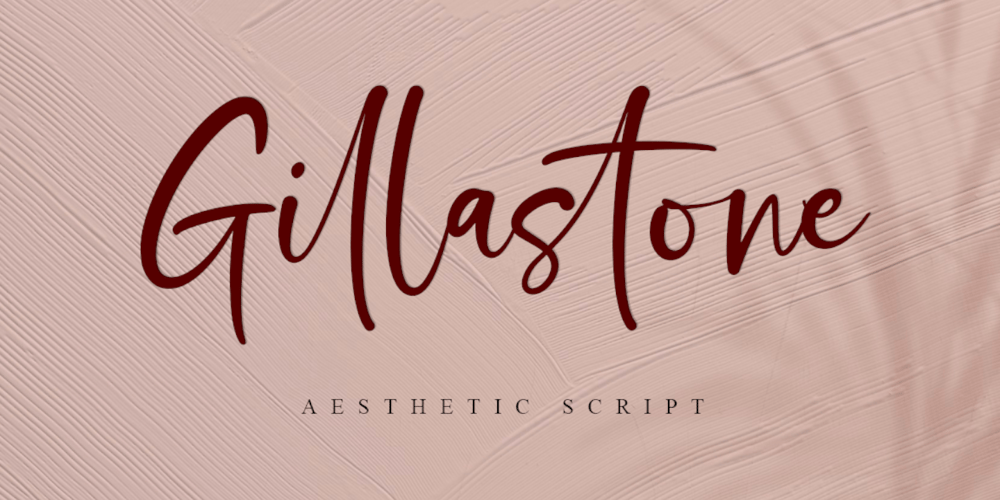
Gillastone Font Family was designed by Bery Arisandi and published by Basnistudio. Gillastone contains 1 styles and family package options. Introducing Gillastone Aesthetic Script FontGillastone aesthetic Script Font, made with Love, Precision and Stylish, perfect for branding, websites, and editorial designs. Includes all Character letters, multilingual support, punctuation, binding. everything can be easily accessed using software that supports OpenType. If you have any questions please don’t hesitate to contact me. follow my Instagram: @basni.std And check our Site www.Basnistudio.comThank You Very Much